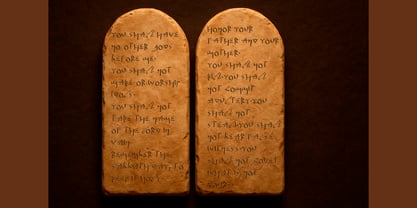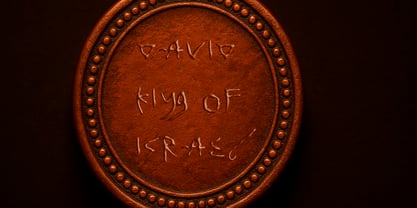
Paleo Script
Pelo Script is a decorative display typeface inspired by the ancient Paleo-Hebrew script. Its forms echo biblical-era inscriptions found on coins, seals, and archaeological fragments from Israel and the surrounding regions. The letterforms were developed through close observation of real engraved artifacts and inscriptions, creating a visual connection to the cultural and religious heritage of the Old Testament period.
This typeface was crafted to bring a sense of mystery, history, and sacred meaning into visual design. With artistic ligatures and sculpted curves, Pelo Script captures the spirit of hand-carved writing found on stone tablets, pottery, and ancient scrolls. Though the forms draw directly from Paleo-Hebrew aesthetics, they have been carefully adapted into the Latin alphabet, making the typeface usable in modern languages while preserving its ancient soul.
Pelo Script is especially suited for creative and spiritual projects such as:
• Bible verses and inspirational quotes
• Religious branding and logos
• Book covers and posters with biblical or archaeological themes
• Faith-based marketing or packaging
• Museum materials and historical recreations
Whether you're designing for a church, a museum, or a faith-based brand, Pelo Script offers a powerful typographic voice that bridges ancient aesthetics with contemporary design.